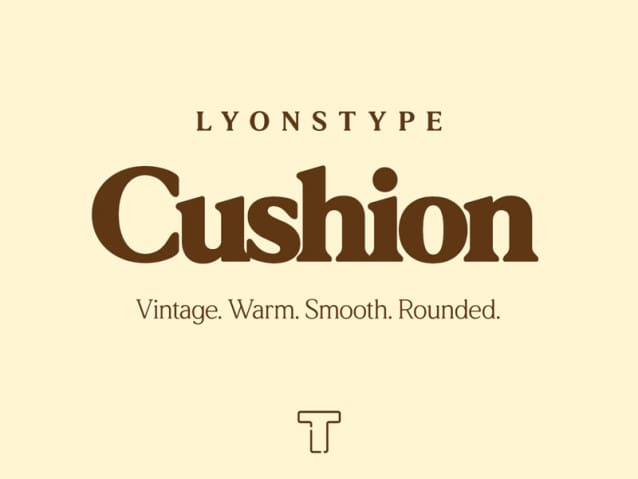
LT Cushion Font
LT Cushion Font, a revival of the Salisbury Bold font. Three additional weights. It would be a perfect choice to design posters, affiches, logos, t-shirt and magazine prints, eye-pleasing typographic designs and more.